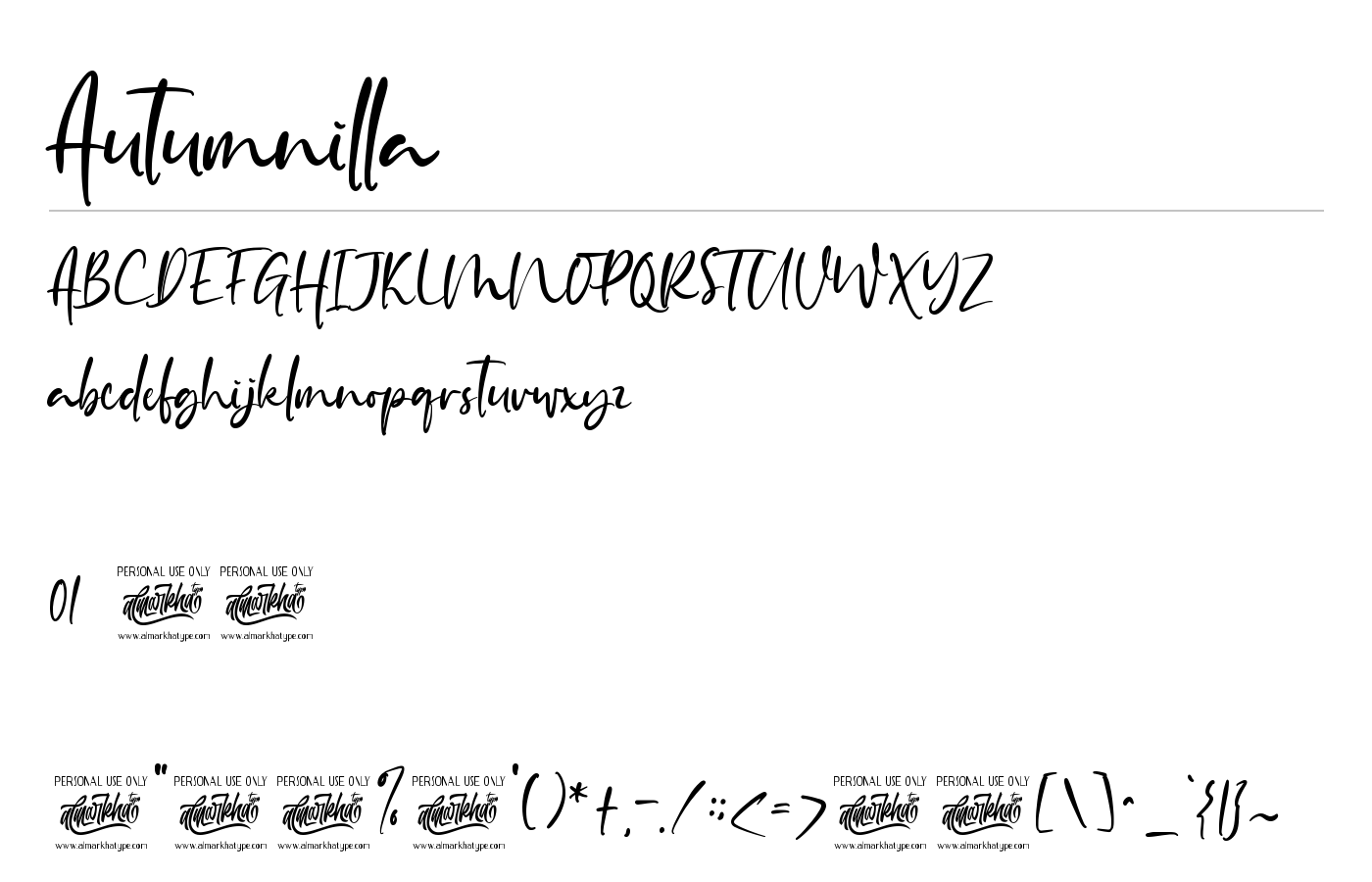
Autumnilla is a casual, handwritten script font with a lively and fluid style, featuring a medium weight and natural, smooth strokes that give it an inviting, personal touch. Its irregular yet elegant letterforms make it ideal for creative projects, branding, and designs that seek a warm, friendly, and approachable feel. This font works well for logos, invitations, and social media graphics where a handcrafted, authentic look is desired.
Autumnilla Font
About Autumnilla Font
| Font family | Autumnilla Font |
| Designer | Almarkhatype 2020 (Abdul Malik - Ghazi) |